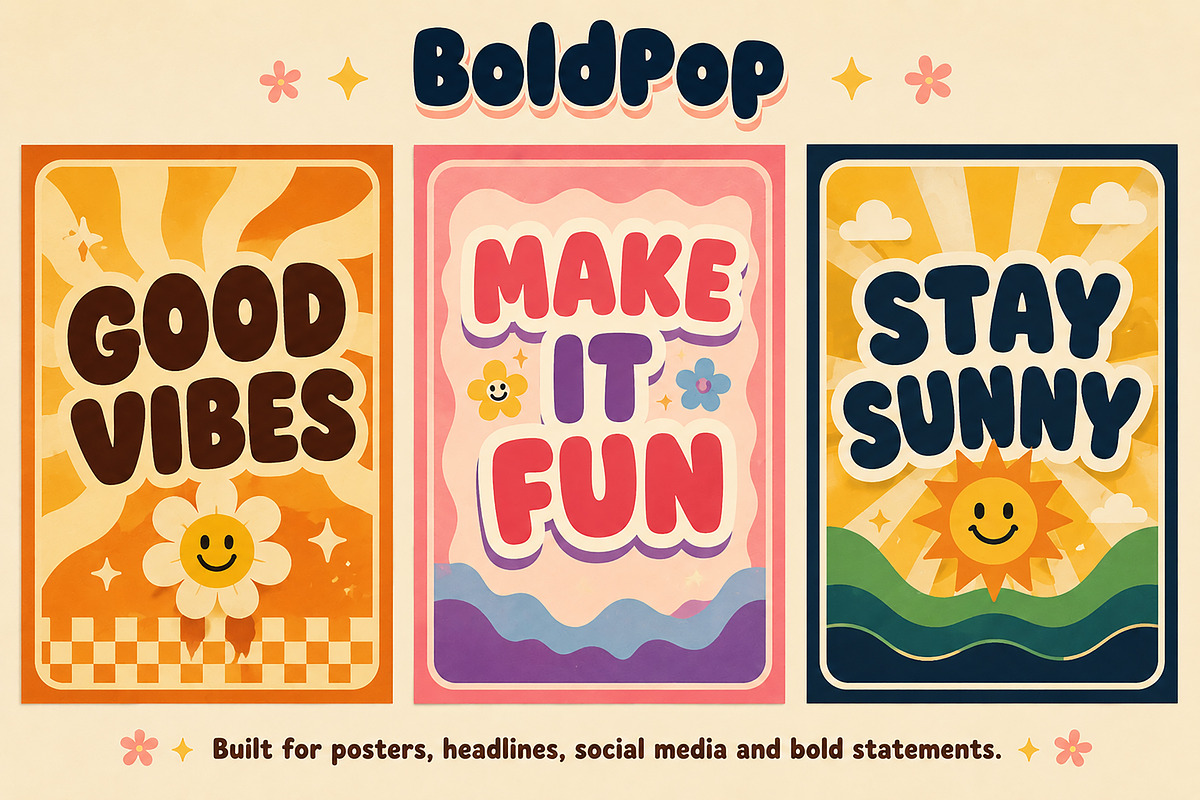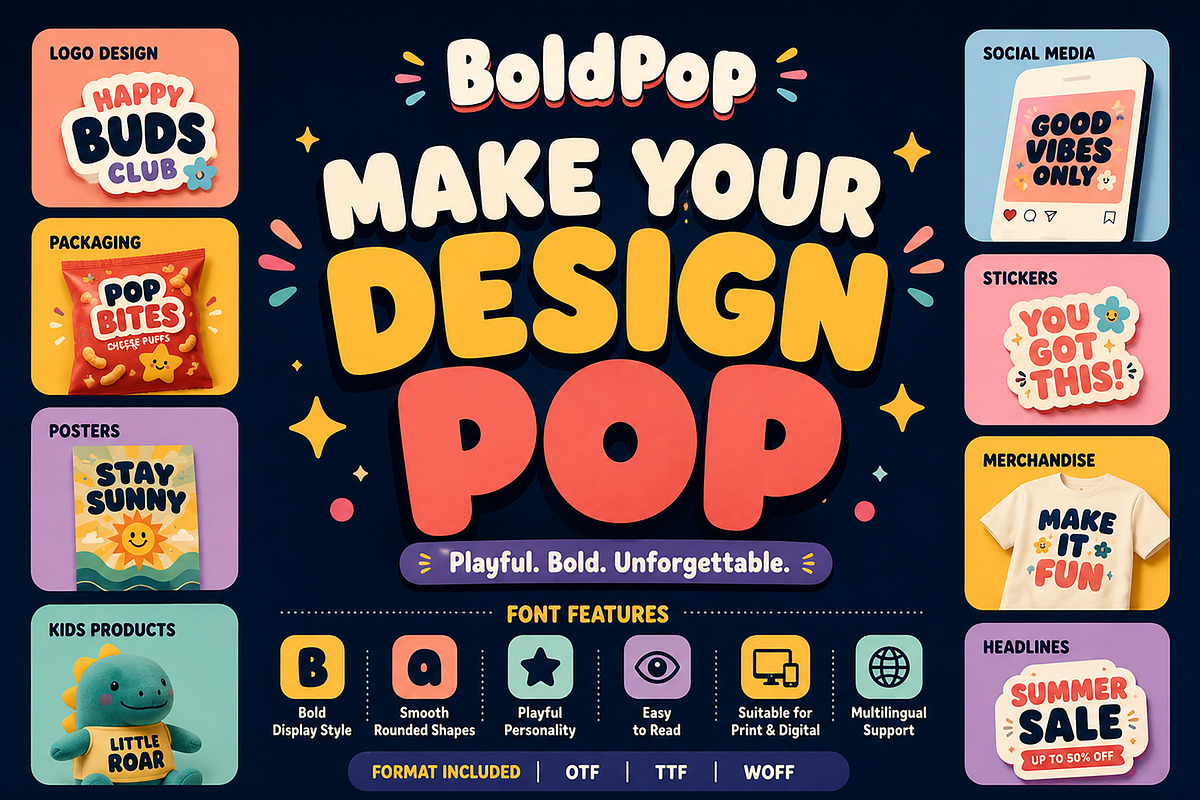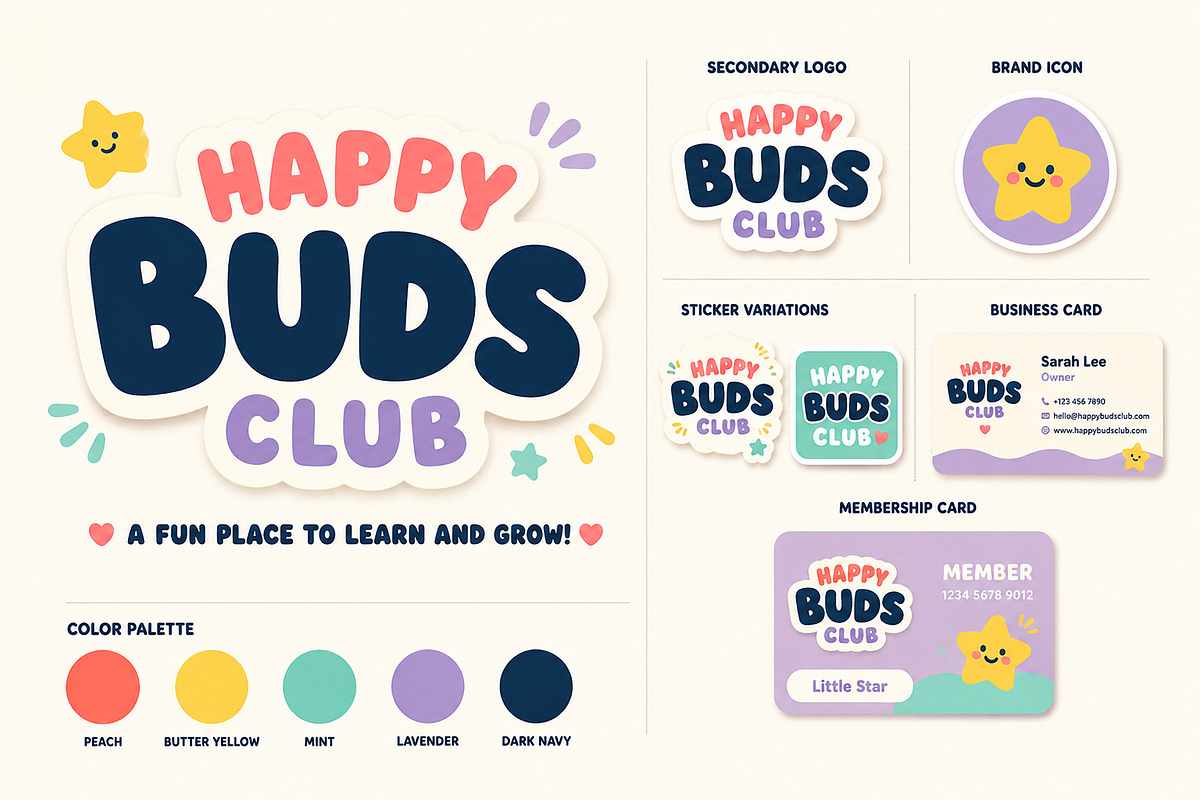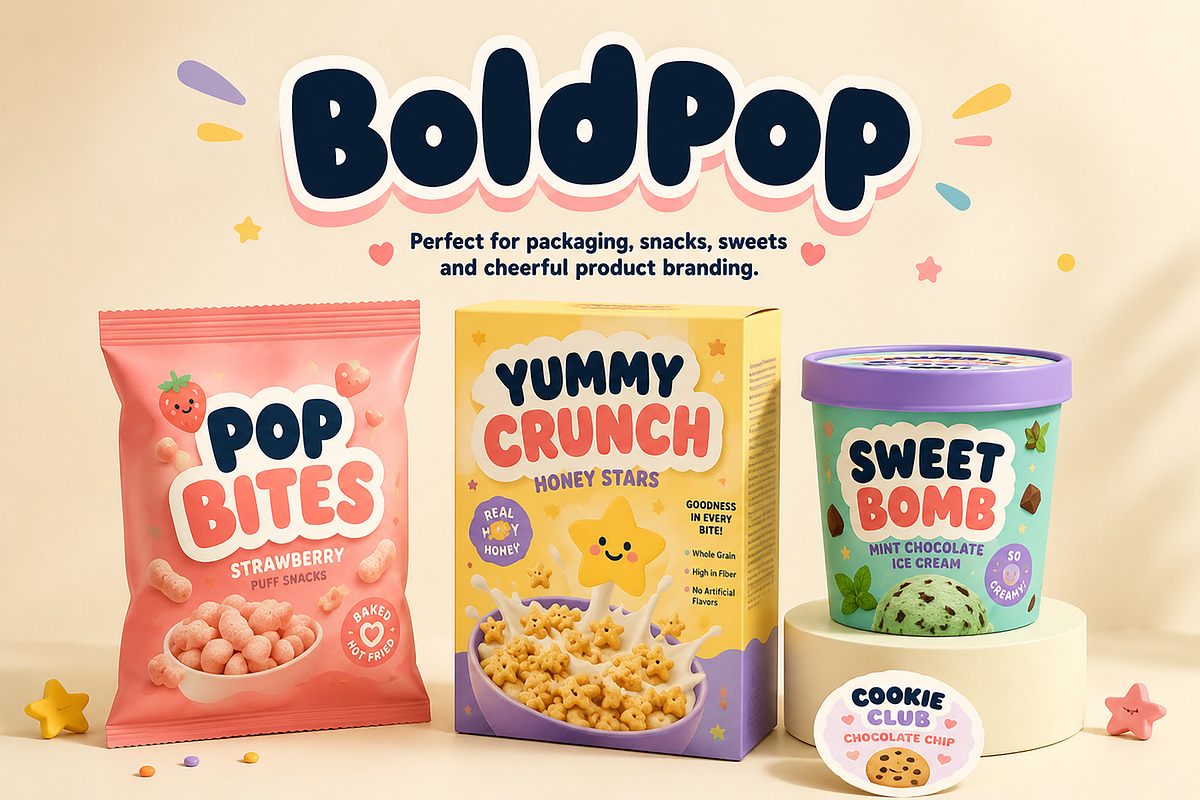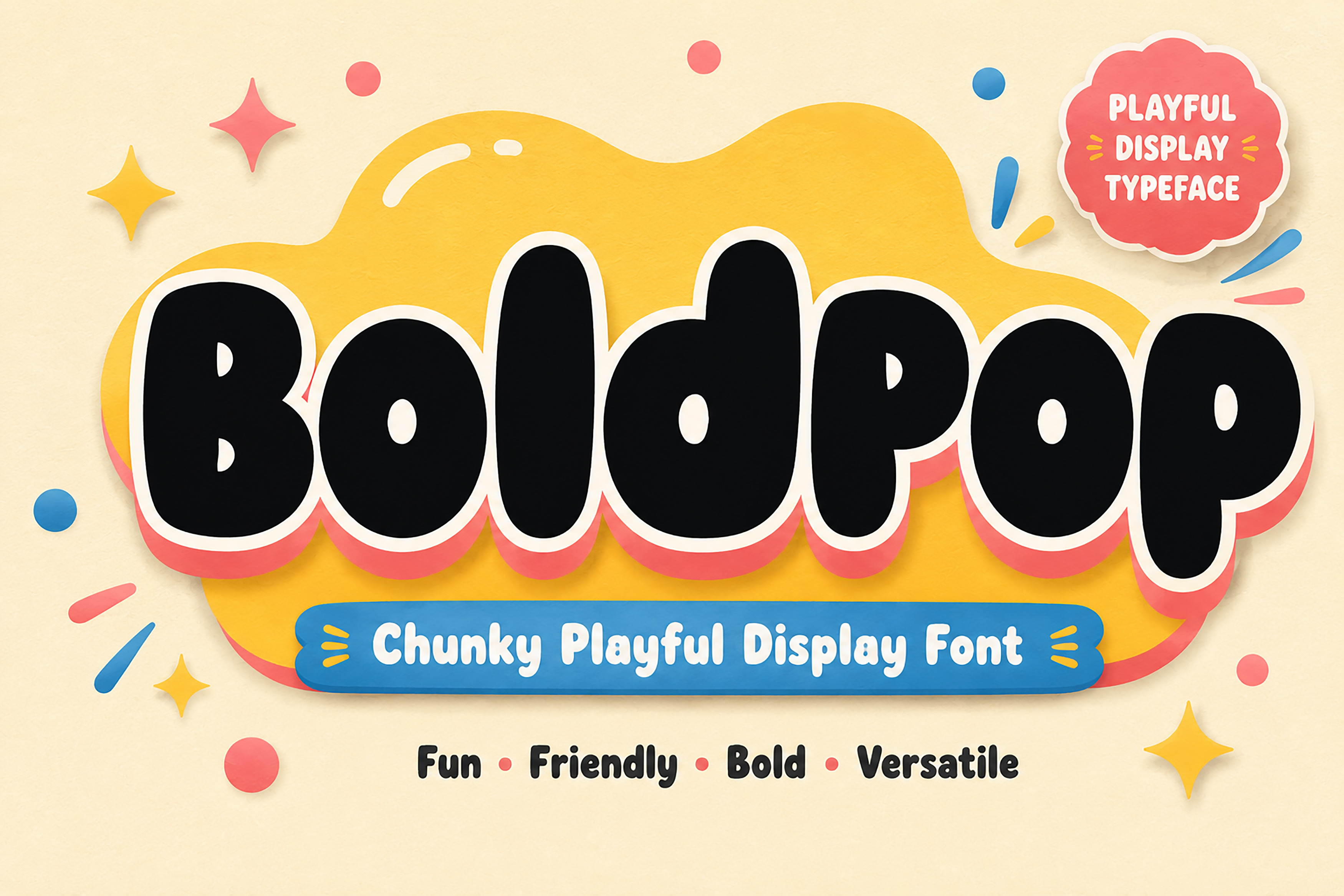
BoldPop – Chunky Display Font
BoldPop – Chunky Playful Display Font
BoldPop is a bold, chunky, and playful display font designed to make your typography stand out with personality. Featuring smooth rounded edges and a fun, friendly style, this typeface is perfect for eye-catching headlines, logos, packaging, posters, branding, and children's products.
Whether you're creating a cheerful brand identity, snack packaging, social media graphics, merchandise, or vibrant marketing materials, BoldPop delivers a bold and memorable look that instantly grabs attention.
Its clean curves and thick letterforms provide excellent readability while maintaining a playful and modern aesthetic, making it an ideal choice for creative projects that need energy, warmth, and impact.
Brand Identity
Food & Snack Branding
Children's Products
Toy Brands
Posters
Headlines
Stickers
T-Shirts
Event Promotions
YouTube Thumbnails
Greeting Cards
Creative Advertising
Bold Display Font
Chunky Rounded Letterforms
Fun & Playful Style
Easy to Read
Perfect for Large Headlines
Smooth Curves